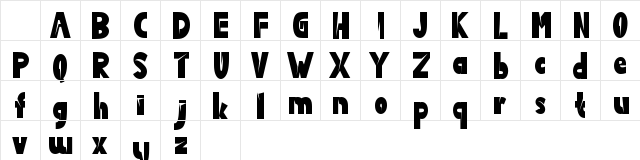
Complete Dark Master Regular glyph index. Displaying only characters natively supported by Dark Master Regular font.
Dark Master is a composed and adaptable typeface that performs quietly and consistently across a wide range of design contexts.